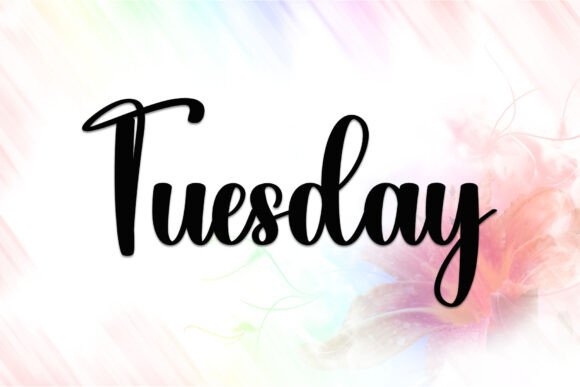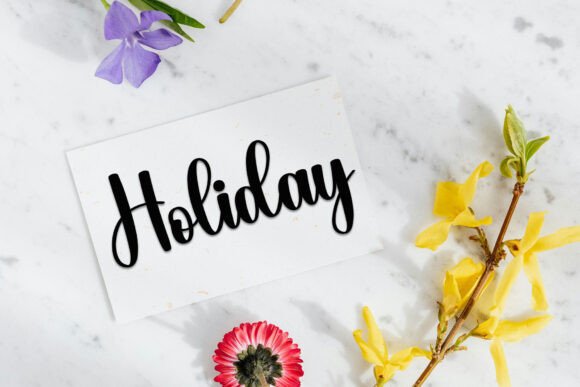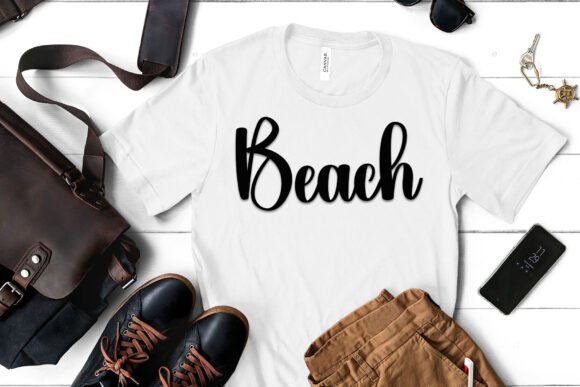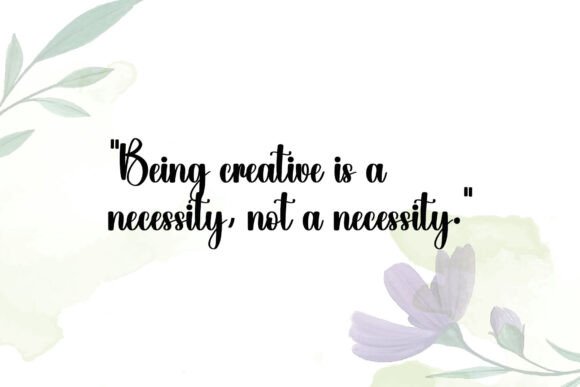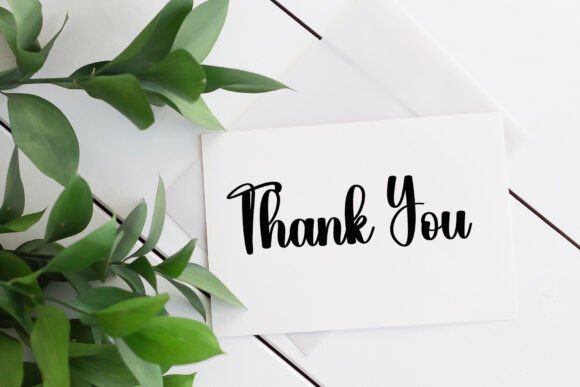
The Perfect Font for Your Boho Wedding Inspiration
You’ve just stumbled upon the perfect inspiration for your wedding invitation, and the excitement is building up. You envision a whimsical, rustic setting with flowers and greenery everywhere. The perfect font to match this vision is just a click away – welcome the Boho Wedding Font, a beautiful, elegant handwritten font that will make your designs truly special.
This lovely font is not just a pretty face; it’s a valuable asset for designers looking to create unique and timeless designs. Its distinct style and effortless elegance make it perfect for weddings, baby showers, and other special occasions. With Boho Wedding Font, you’ll be able to bring your creative vision to life and create spectacular designs that will leave a lasting impression.
Boho Wedding Font Key Features
- Font Family: A beautiful, hand-drawn script font with a bohemian feel, perfect for weddings and other special occasions.
- Unique Characteristics: The font features beautiful, flowing lines, intricate details, and a touch of whimsy, making it perfect for adding a bohemian touch to wedding designs.
- Characters and Glyphs: The font includes a wide range of characters and glyphs, including uppercase and lowercase letters, numbers, and punctuation marks, to ensure seamless use in various design applications.
Designer Review: Boho Wedding Font
Overall, I have mixed feelings about the Boho Wedding Font. While it’s a visually stunning font, it’s not without its limitations.
- Unique and Whimsical Design: The Boho Wedding Font has a distinct, bohemian vibe that’s perfect for adding a touch of personality to wedding invitations, stationery, and other materials.
- High-Quality Raster Images: The font’s raster images are crisp and clear, making them perfect for digital use.
- Good for Handwritten-Style Text: The font’s irregularities and flair make it ideal for creating a handwritten-style text that looks like it was written by hand.
- Limited Font Variations: The font only comes in a few variations, which can make it feel restrictive for designers who need more options.
- Not Ideal for Body Text: The font’s decorative flair can make it difficult to read at smaller font sizes, making it less suitable for body text.
- No Matching Script or Display Fonts: The font doesn’t come with matching script or display fonts, which can make it harder to create a cohesive design.
Overall, the Boho Wedding Font is a great choice for designers who need a unique, whimsical font for special occasions. However, it’s not the most versatile font, and its limitations may make it less suitable for larger design projects.
Tips for Getting the Most Out of the Boho Wedding Font
1. Pair the font with a mix of bold and cursive fonts for a unique look.
2. Use the font in combination with watercolor elements for a bohemian feel.
3. Experiment with different font sizes and colors to create visual interest.
The Boho Wedding Font is perfect for:
Wedding programs and menus
Wedding welcome signs and timelines
Wedding website and social media graphics
Alternatives to Boho Wedding Font
Great Vibes is a script font that exudes elegance and sophistication, making it perfect for high-end weddings or formal events. It features flowing lines and elegant curves, giving it a luxurious feel. Great Vibes is ideal for invitations, wedding stationery, and other formal wedding materials. Compared to Boho Wedding Font, Great Vibes is more refined and polished, making it suitable for more formal events.